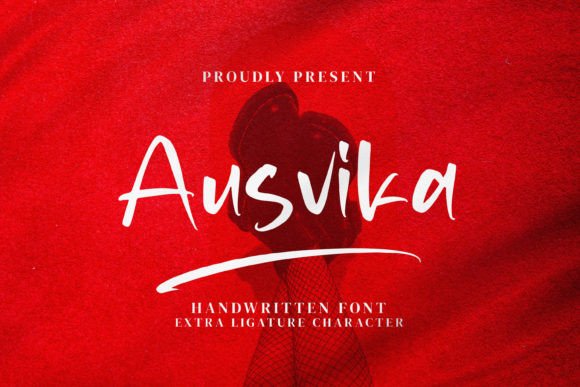
Discover the captivating Ausvika Font, a true gem in the world of script fonts. Created by integritypestudio, this beautiful and refined font is a must-have for anyone seeking elegance and modernity in their designs. With its classy appearance and versatile nature, Ausvika is the perfect choice for a wide range of projects, from logos and branding to invitations and social media posts.
One of the standout features of Ausvika is its timeless charm. This font exudes a sense of sophistication and grace, effortlessly elevating any design it is used in. Whether you're aiming for a luxurious wedding design or a professional corporate logo, Ausvika will always deliver a touch of class.
The versatility of Ausvika knows no bounds. Its elegant curves and clean lines make it suitable for a variety of purposes. Stand out from the crowd with impeccable branding that leaves a lasting impression. Craft stunning wedding invitations that set the tone for an unforgettable celebration. Create eye-catching social media posts that effortlessly captivate your audience. Ausvika truly does it all.
But it's not just about looks with Ausvika. This font is designed to make your life easier. With its smooth and seamless flow, you'll find yourself effortlessly creating beautiful designs in no time. The carefully crafted ligatures and alternate characters add an extra layer of authenticity and uniqueness to your work, giving you the freedom to truly make it your own.
When it comes to versatility, Ausvika shines as the best font for the money sign. Whether you're running an e-commerce store or creating financial reports, Ausvika's distinct and legible characters ensure that your money signs are clear and impactful. Make a statement with every dollar sign, and let your designs speak volumes.
In conclusion, Ausvika is more than just a font – it's a game-changer. Its timeless elegance, versatility, and ease of use make it the perfect choice for anyone looking to create stunning designs. Whether you're a professional designer or a passionate DIY enthusiast, Ausvika will unlock a world of creative possibilities. So why wait? Download Ausvika today and embark on a design journey that will leave a lasting impression.